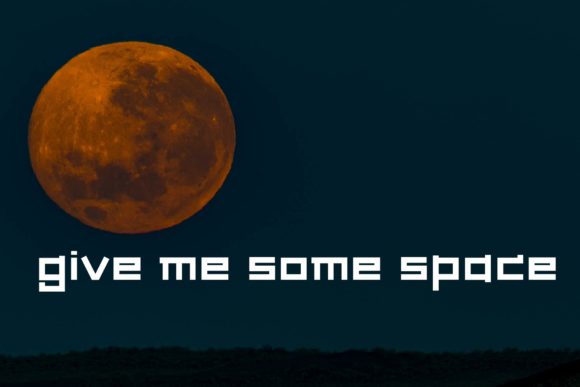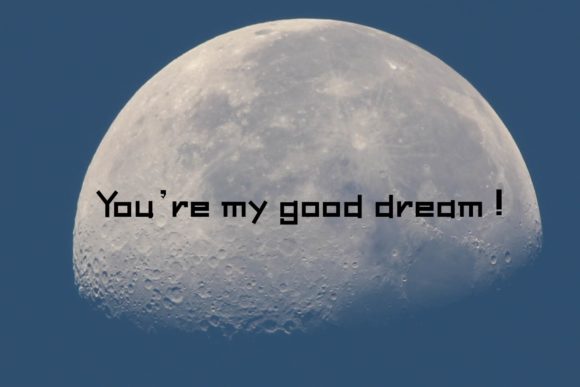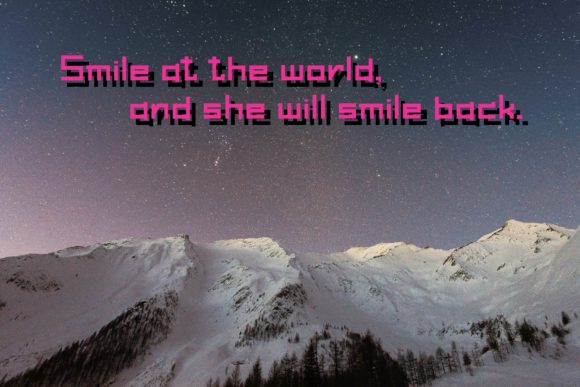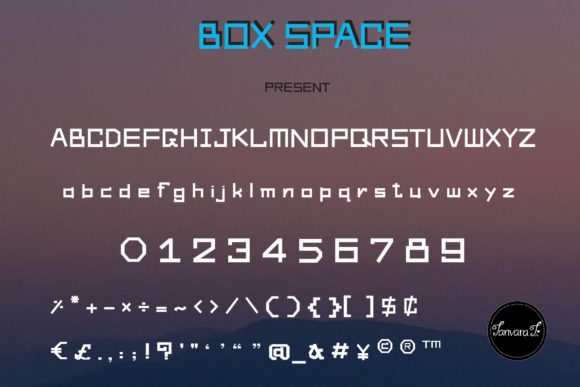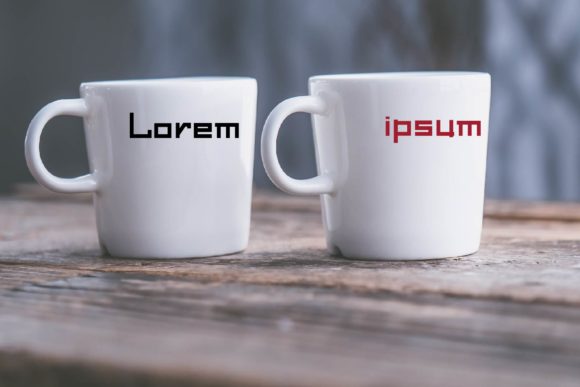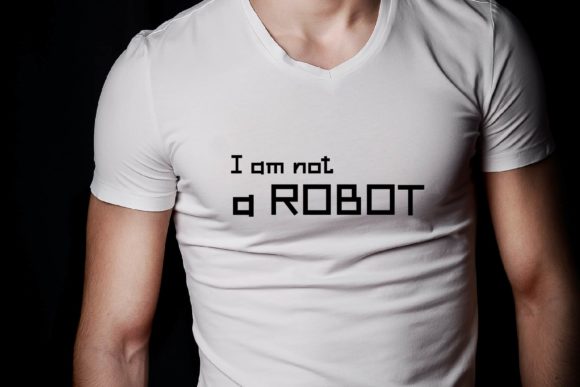
Unlocking the Power of Unconventional Typography
Have you ever been stuck on a design project, unable to find the perfect font to bring your vision to life? We’ve all been there. The blank page stares back, taunting us with its emptiness. But what if I told you there’s a font that can turn that blank page into a masterpiece?
Enter the Box Space Font, a bold and authentic display font that celebrates abstract shapes in all their eclectic beauty. This font is not just another addition to your type library – it’s a game-changer. With its unique aesthetic, Box Space Font adds a touch of sophistication and creativity to any project, making it a valuable asset for designers looking to elevate their work.
Box Space Font Key Features
- Font Family: Box Space Font is a sans-serif typeface designed for digital and print applications.
- Character Set: Supports a wide range of languages, including Latin, Cyrillic, Greek, and many more.
- Resolution: Designed for high-resolution displays, including Retina and 4K screens, with optimal readability at 300 DPI.
- Font Size: Available in various sizes, from 8pt to 72pt, making it suitable for a wide range of applications.
- Unique Characteristics: Box Space Font features a unique blend of geometric and organic elements, resulting in a clean and modern aesthetic.
Box Space Font Review
As a designer, I was excited to dive into the Box Space Font and see what it has to offer. Overall, I found it to be a solid choice for certain projects, but not without its limitations.
- Clean and minimalist aesthetic
- Highly customizable with various font weights and styles
- Works well for digital displays and interfaces
- Lack of personality and uniqueness
- Can appear generic and unremarkable in certain contexts
- May not be suitable for print materials or projects requiring a strong emotional connection
Overall, I’d give the Box Space Font a solid 3.5 out of 5 stars. It’s a reliable choice for projects where a clean and modern aesthetic is desired, but it may not be the best fit for those looking for something more unique or expressive. As with any font, it’s essential to consider the specific needs and goals of your project before making a final decision.
For the most out of Box Space Font, use it for headings and titles to create a clean and modern look. It’s also great for creating digital products, such as e-books, and websites.
- Infographics and presentations
- Website headers and footers
Montserrat is a modern sans-serif font designed for digital use. It’s ideal for headings and titles, and its clean design makes it perfect for creating a minimalist aesthetic. Compared to Box Space Font, Montserrat is more versatile and has a wider range of applications, from logos to body text.
Avenir is a geometric sans-serif font that exudes elegance and sophistication. It’s suitable for luxury brands, fashion, and high-end products. Compared to Box Space Font, Avenir is more refined and has a more subtle feel, making it ideal for situations where a more subtle approach is needed.
Open Sans is a clean and modern sans-serif font that’s highly legible on screens. It’s perfect for body text, headings, and titles, and its neutral design makes it suitable for a wide range of applications. Compared to Box Space Font, Open Sans is more approachable and has a friendlier feel, making it ideal for everyday use.
Inter is a modern sans-serif font designed for digital use. It’s highly legible and versatile, making it suitable for a wide range of applications, from body text to headings and titles. Compared to Box Space Font, Inter is more dynamic and has a more contemporary feel, making it ideal for modern designs and branding.
3 Creative Project Ideas Using Box Space Font
Project 1: Minimalist Quote Wall
Transform a plain wall into a stunning quote gallery using Box Space Font.
To use Box Space Font in this project:
- Choose a collection of inspiring quotes.
- Design a series of boxes with varying sizes and colors using Box Space Font.
- Place the boxes on the wall in a visually appealing pattern.
Combine Box Space Font with:
- Neutral colors to create a minimalist aesthetic.
- Wooden or metal frames to add texture and depth.